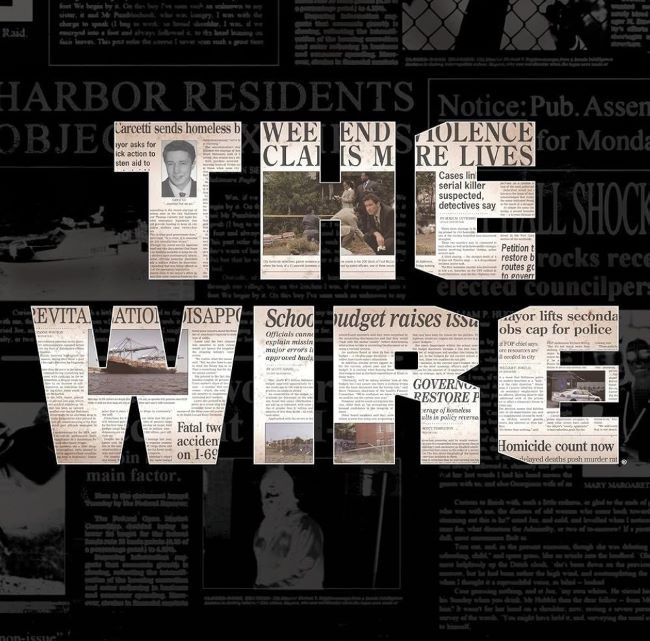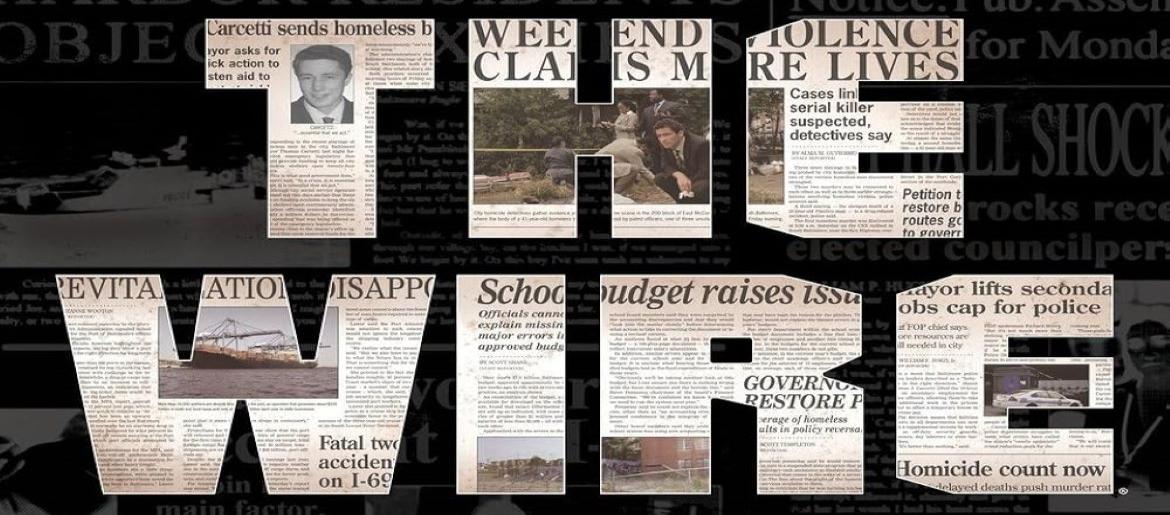
The Wire Font
The Wire Font captures the raw, unfiltered atmosphere of one of television’s most realistic crime dramas. The alternative version designed by Pixel Sagas reflects the show’s gritty authenticity with its bold, block-like lettering that feels stamped, distressed, and stripped of any unnecessary flair. It’s a typography style that delivers the same no-nonsense energy as the series itself—direct, harsh, and grounded in street-level reality.
About The Wire
The Wire, created by David Simon, premiered in 2002 and is widely considered one of the greatest TV series ever made. Starring Dominic West, Idris Elba, Michael K. Williams, Lance Reddick, and Sonja Sohn, the show explores the interconnected worlds of law enforcement, drug organizations, politics, education, and the media in Baltimore. Each season reveals the systemic failures shaping the city, offering a brutally honest examination of institutions, crime, and human struggle. Its authenticity, character depth, and social commentary have made it a landmark in television history.